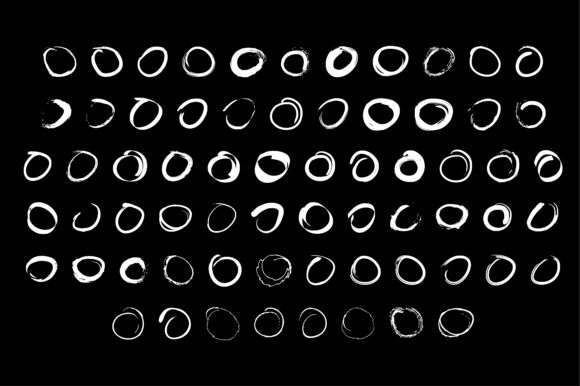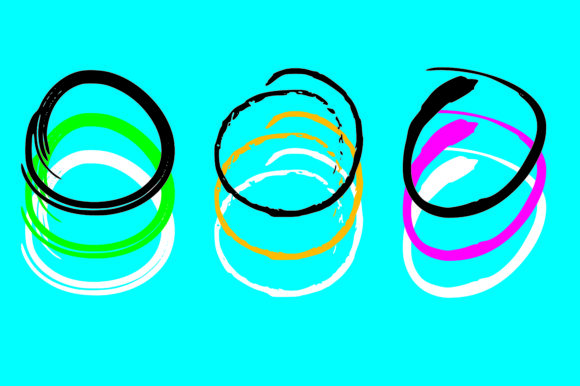
Unlock Endless Design Possibilities with BM Graphics – Circles Font
Are you a designer, crafter, or DIY enthusiast looking for a versatile and creative way to elevate your visual projects? Look no further than BM Graphics – Circles Font, a comprehensive set of 75 unique glyphs that offer a vast range of styles and designs. This incredible font is perfect for quickly adding graphics to a design or line of text, and its export-friendly features make it easy to create icons, crafts, and more!
What is BM Graphics – Circles Font?
BM Graphics – Circles Font is a specially designed font that consists of 75 different glyphs, each with its own distinct style and design. These glyphs are carefully crafted to provide a wide range of visual elements that can be used to enhance any design or text. From simple shapes to intricate designs, this font has everything you need to take your projects to the next level.
Key Features of BM Graphics – Circles Font
- 75 Unique Glyphs: With 75 different glyphs to choose from, you’ll never run out of creative options. Each glyph is carefully designed to provide a unique visual element that can be used to enhance your designs.
- Massive Range of Styles and Designs: Whether you’re looking for simple shapes, intricate designs, or something in between, BM Graphics – Circles Font has got you covered. The font includes a wide range of styles and designs to suit any project or theme.
- Export-Friendly: With BM Graphics – Circles Font, you can easily export your designs as icons, crafts, and more. This makes it perfect for crafters, DIY enthusiasts, and designers who want to create physical products.
Who Can Benefit from BM Graphics – Circles Font?
BM Graphics – Circles Font is perfect for a wide range of designers, crafters, and DIY enthusiasts, including:
- Graphic Designers: Add a creative touch to your designs with unique glyphs and visual elements.
- Crafters: Use the font to create custom icons, logos, and designs for your crafts and DIY projects.
- DIY Enthusiasts: Add a personal touch to your projects with custom graphics and designs.
- Small Business Owners: Use the font to create custom branding materials, such as logos, icons, and social media graphics.
Tips and Tricks for Using BM Graphics – Circles Font
Here are some tips and tricks to help you get the most out of BM Graphics – Circles Font:
- Experiment with Different Glyph Combinations: Don’t be afraid to try out different glyph combinations to create unique and interesting designs.
- Use the Font as a Starting Point: Use the font as a starting point for your design and then customize it to fit your needs.
- Play with Colors and Textures: Add an extra layer of depth to your design by experimenting with different colors and textures.
BM Graphics – Circles Font is an incredible resource for designers, crafters, and DIY enthusiasts. With its 75 unique glyphs, massive range of styles and designs, and export-friendly features, this font is perfect for anyone looking to add a creative touch to their projects. Whether you’re a seasoned designer or just starting out, BM Graphics – Circles Font is a must-have in your design toolkit.